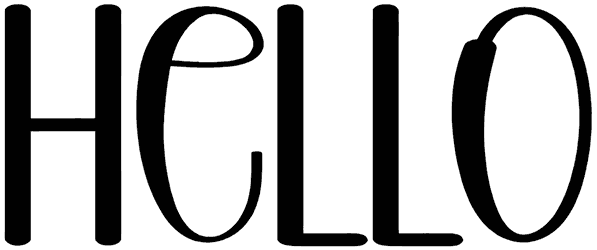
Hello Font
It’s impossible to strike out with the readers once you choose a spring font like Hello with such a warm attitude to speak for you. The playfulness of it gets the job done as the lowercase and uppercase letters share the same size to create something somewhat unpredictable.
You probably should know that not all characters have a lowercase edition. If you’re okay with that, by all means, pick this kid’s font for branding your stationery items, milk bottles, and more.